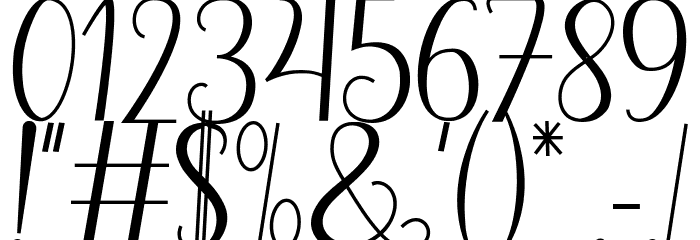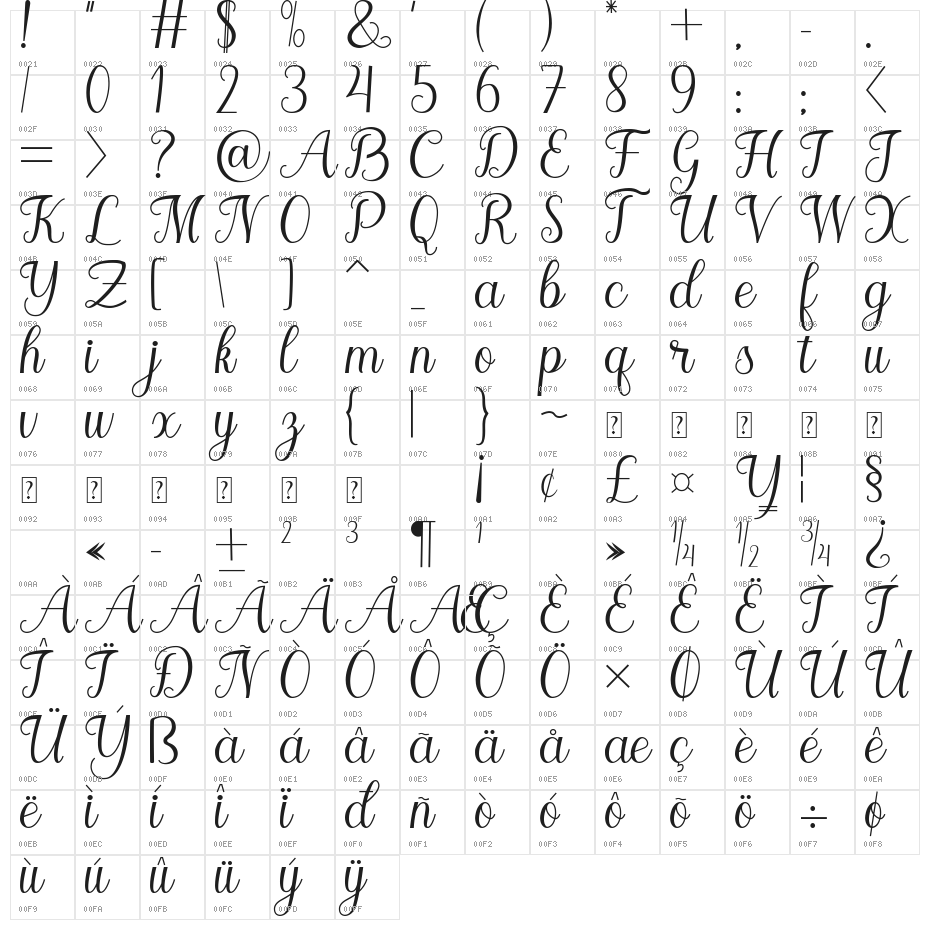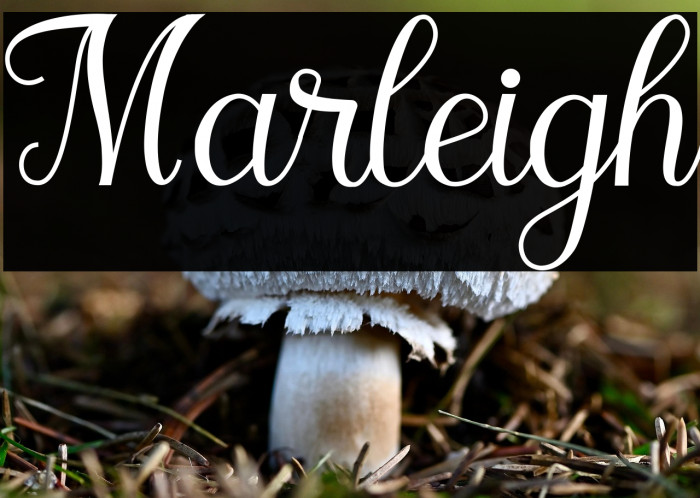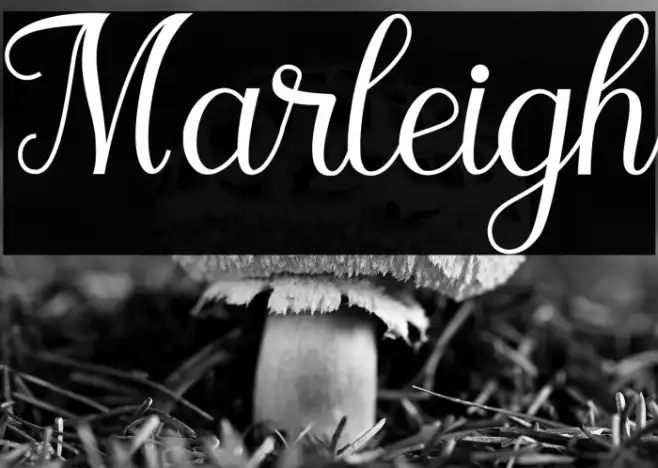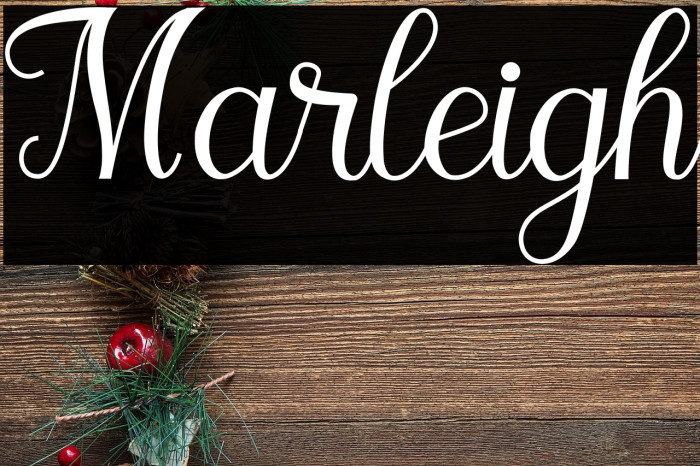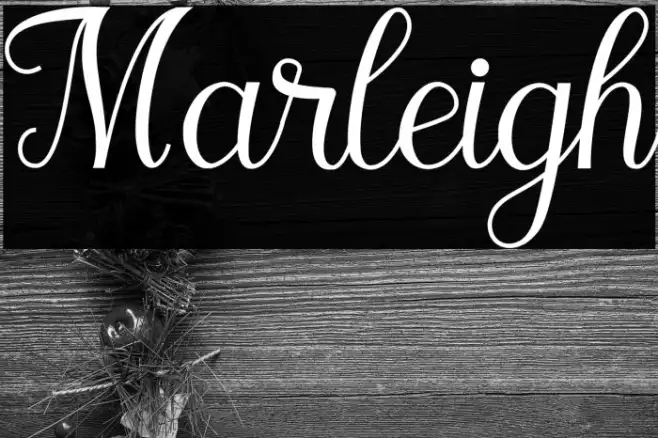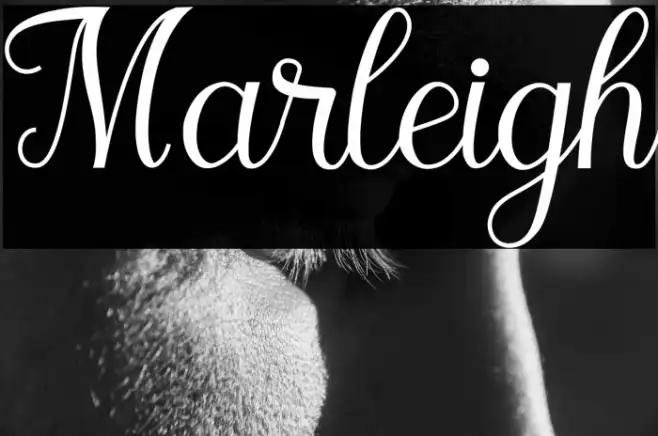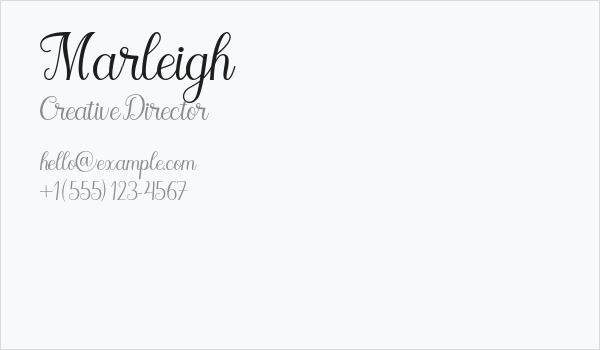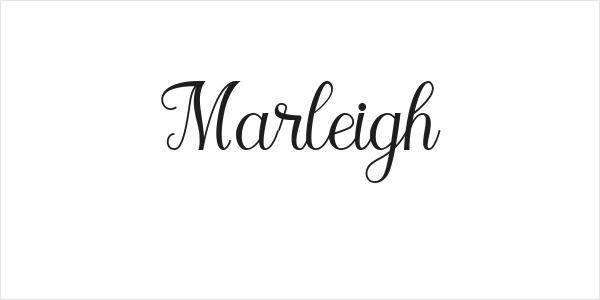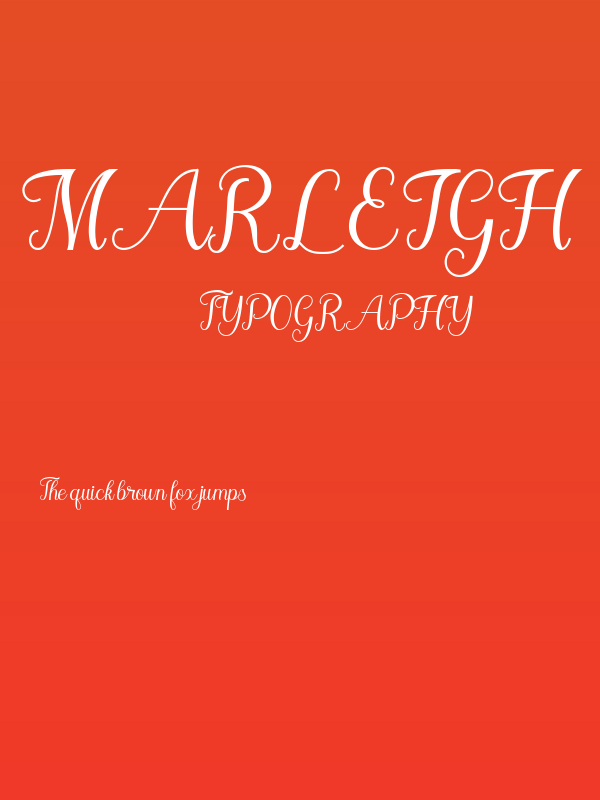
Marleigh Font
Marleigh Description
This font is a stylish script typeface characterized by its elegant, flowing strokes and sophisticated curves. The uppercase letters exhibit a graceful, looping design, while the lowercase letters maintain a consistent fluidity, enhancing readability. The numerals are distinct and well-balanced, complementing the overall aesthetic. Special characters are thoughtfully integrated, maintaining the font's cohesive style. This typeface exudes a sense of elegance and refinement, making it suitable for a variety of design applications.